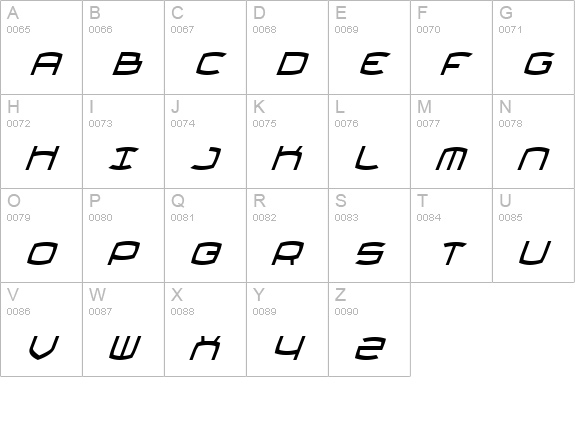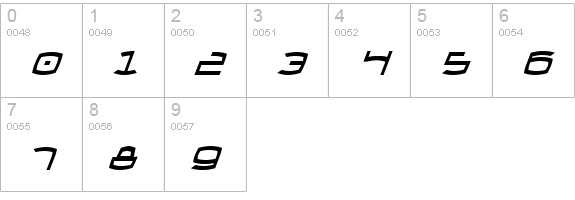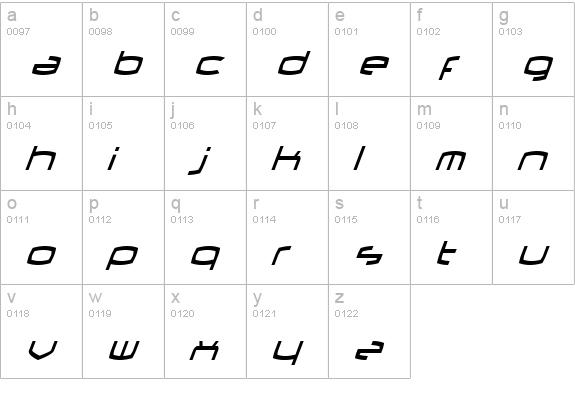
Thundergod II Condensed Italic is a distinctive, condensed-width, italic variant in the Thundergod typeface family \xE2\x80\x94 well suited to design and typography projects.
Thundergod II Condensed Italic font is a stunning display typeface that exudes power and sophistication. With its bold and dynamic design, this font is perfect for making a statement in headlines, logos, and titles. The italic style adds a touch of elegance and flair to any design project. And the best part? Thundergod II Condensed Italic font is available for free download at FontsMarket.com! Whether you're a designer looking to add a bold touch to your creations or a business owner wanting to make a strong impression, this font is a fantastic choice. Don't miss out on the opportunity to enhance your projects with the striking Thundergod II Condensed Italic font – download it for free today!